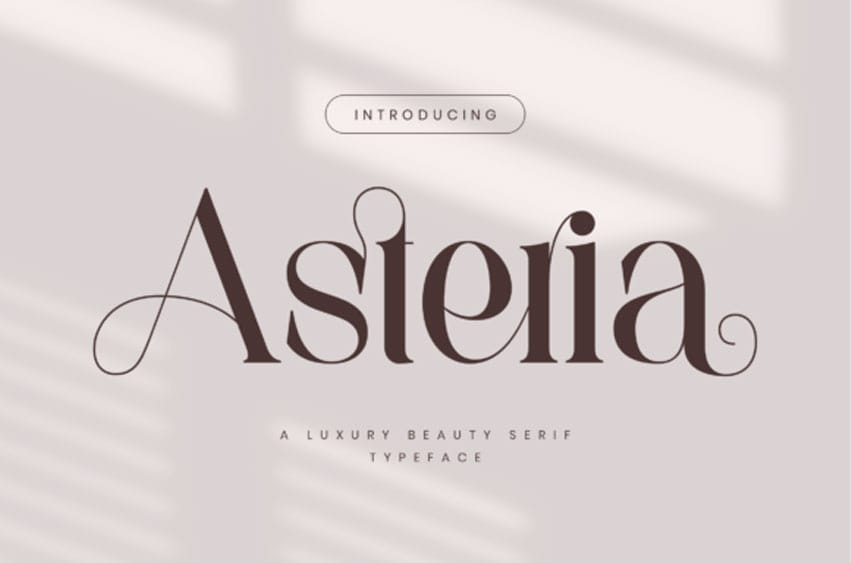
Asteria Serif Font Stylish Ligature Typeface, inspired by the famous minimalist logo perfect for the purposes of designing templates, brochures, videos, advertising branding, logos, and more.